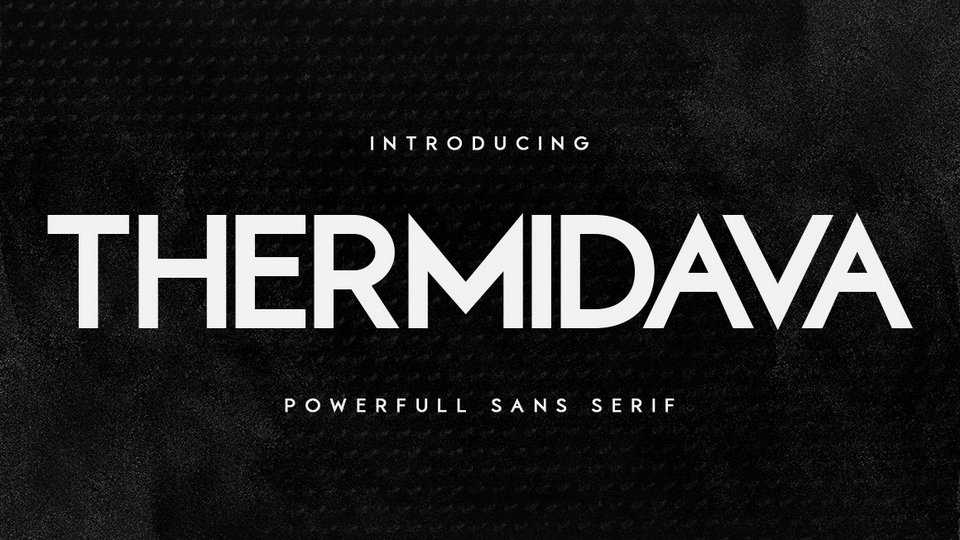
Download Thermidava typeface, a cool, modern and bold geometric sans serif font family with 10 styles. Thermidava can easily be matched to an incredibly large set of projects.
Designer: Yusa Creative